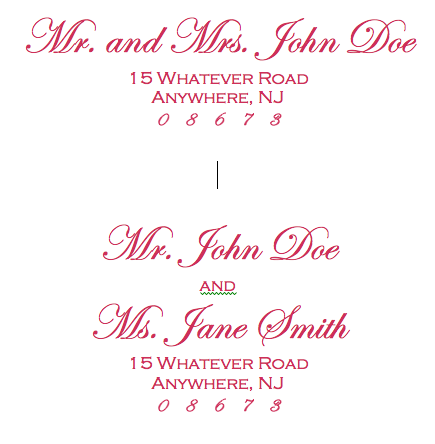
I like it! I think the 3 will be okay...And the font is cute!
I think the font looks great and the zip code is readable; however, I would try to close the gap between the numbers for the zip code, just in case. As for the two people living together example, I would take out the "AND", and just list each individual on separate lines.
EDIT: I forgot about the "3". It looks like an "8" to me, so I would change it, just to be safe.
i personally think the 3 is different enough from the 8 to me okay. I love this font, very pretty!
Maybe you can change the zip code font to something else? The 3 is distinguishable from the 8 but only when they are both together. If you have a zip code with just a 3 I think there might be some confusion.
BTW what font is that?
@MissTeacher7: I love Edwardian and am thinking of using it myself - what is the second font that you used in the address? Thanks!
I had a font similar to that and there were no problems with delivery. I like it!
I love the font! I think you'll be okay with the 3 because there's also an 8 in your zip code.
@iamlemondrop and @sara13beth: Sorry, I dropped the ball and forgot to post back!! The fonts are Edwardian Script and Copperplate Light.
I actually changed the zip to the Copperplate Light as well.
@missteacher - pretty fonts - those are exactly the same two fonts i am using! 3 does look like 8 however...
Hii.. I have a question! Below is a screen shot of a Word doc in which I'm playing around with STD address fonts. What do you think? On my screen I see it as pretty much exactly the size it will print (I made my Word screen 150% and held up a sample printed paper to match the size to the shot). However I don't know if the pic will shrink when I post this.. Anywho.. Will the post office have trouble with the zipcode font? The 3 there is a little fancy. Suggestions?
Also, the 2nd part of the pic is how I thought to list a couple who is living together but not yet married. Is it okay to have the "and" in the middle? With my choice of font and style, I thought it looked silly without the "and" between the 2 lines of script...